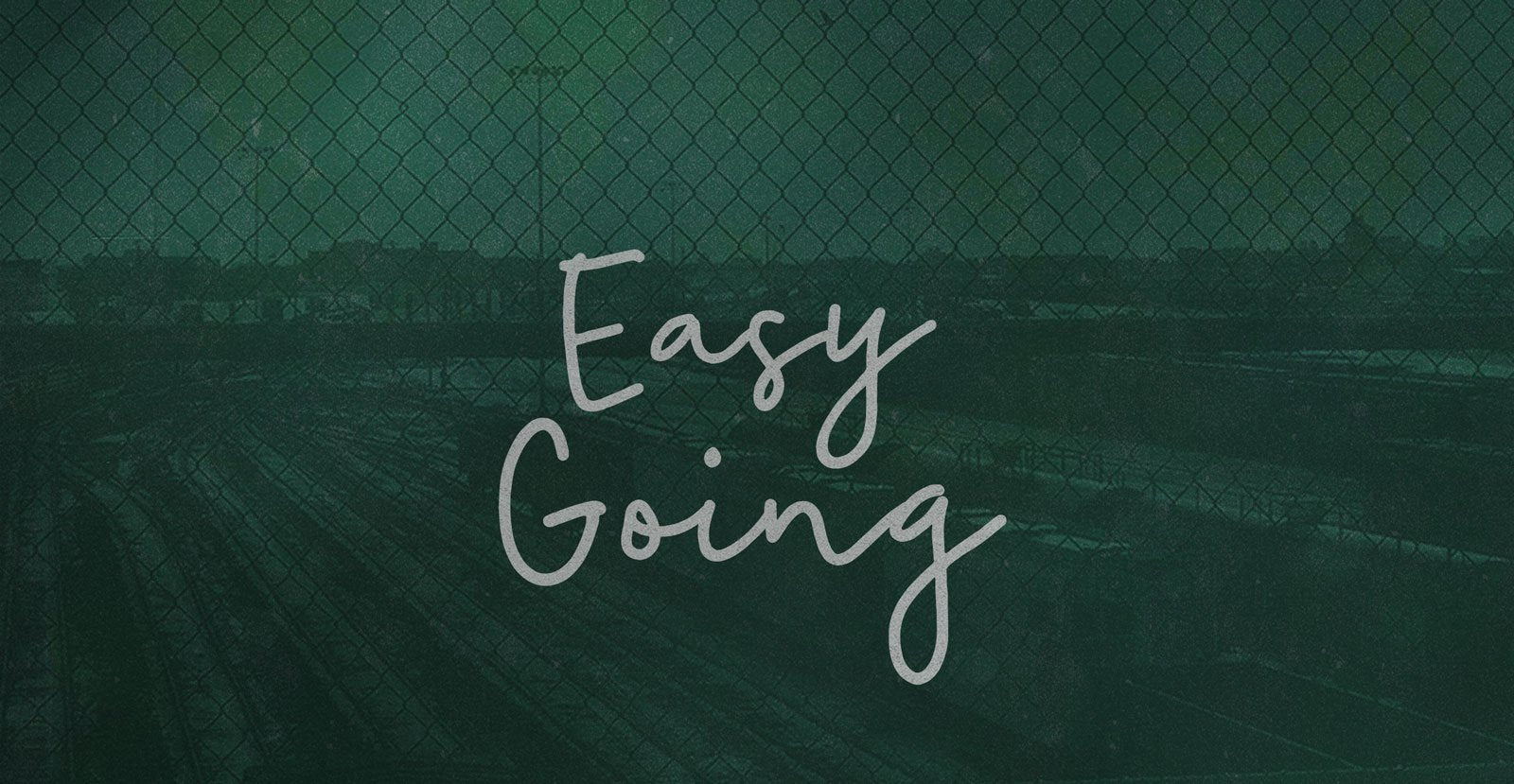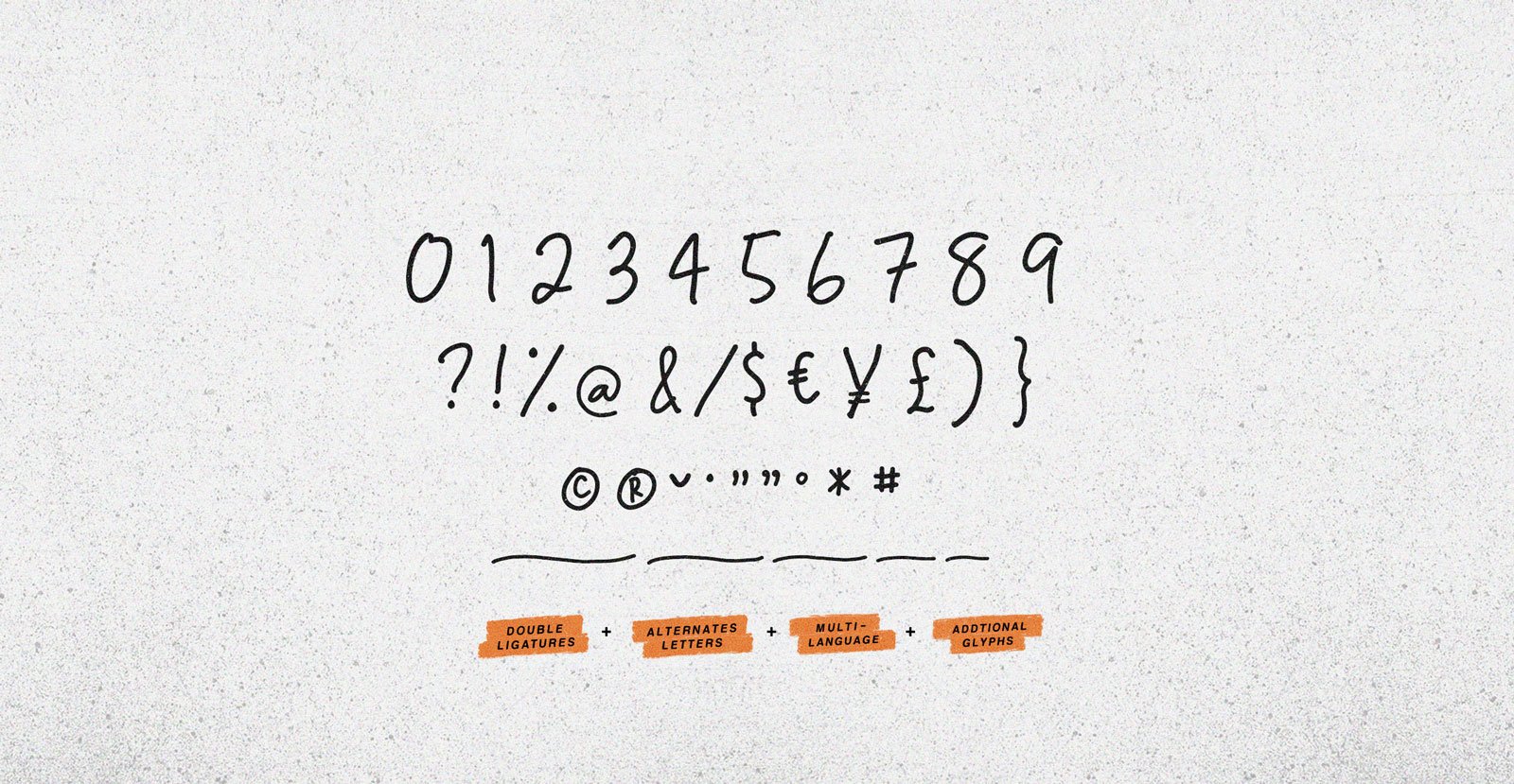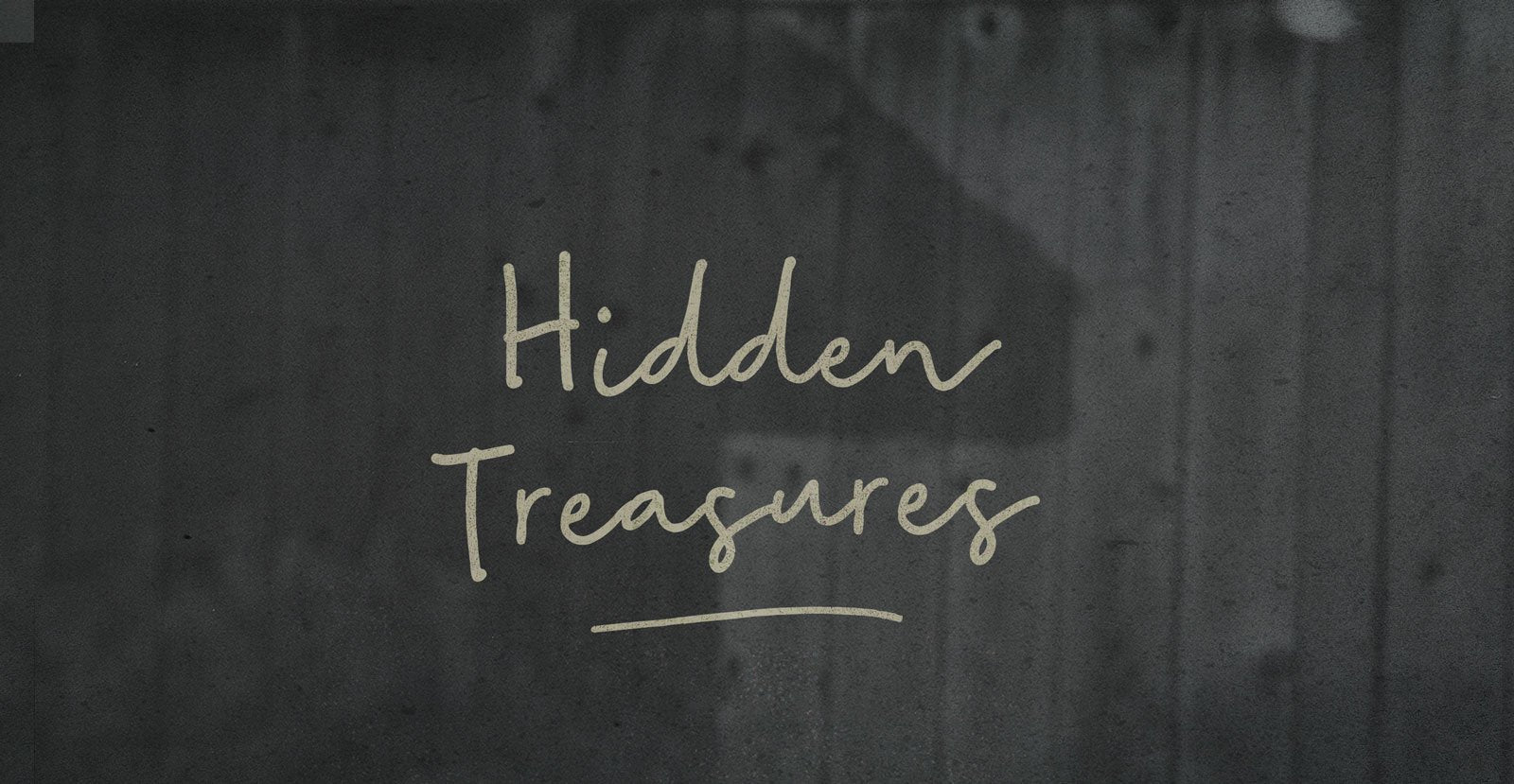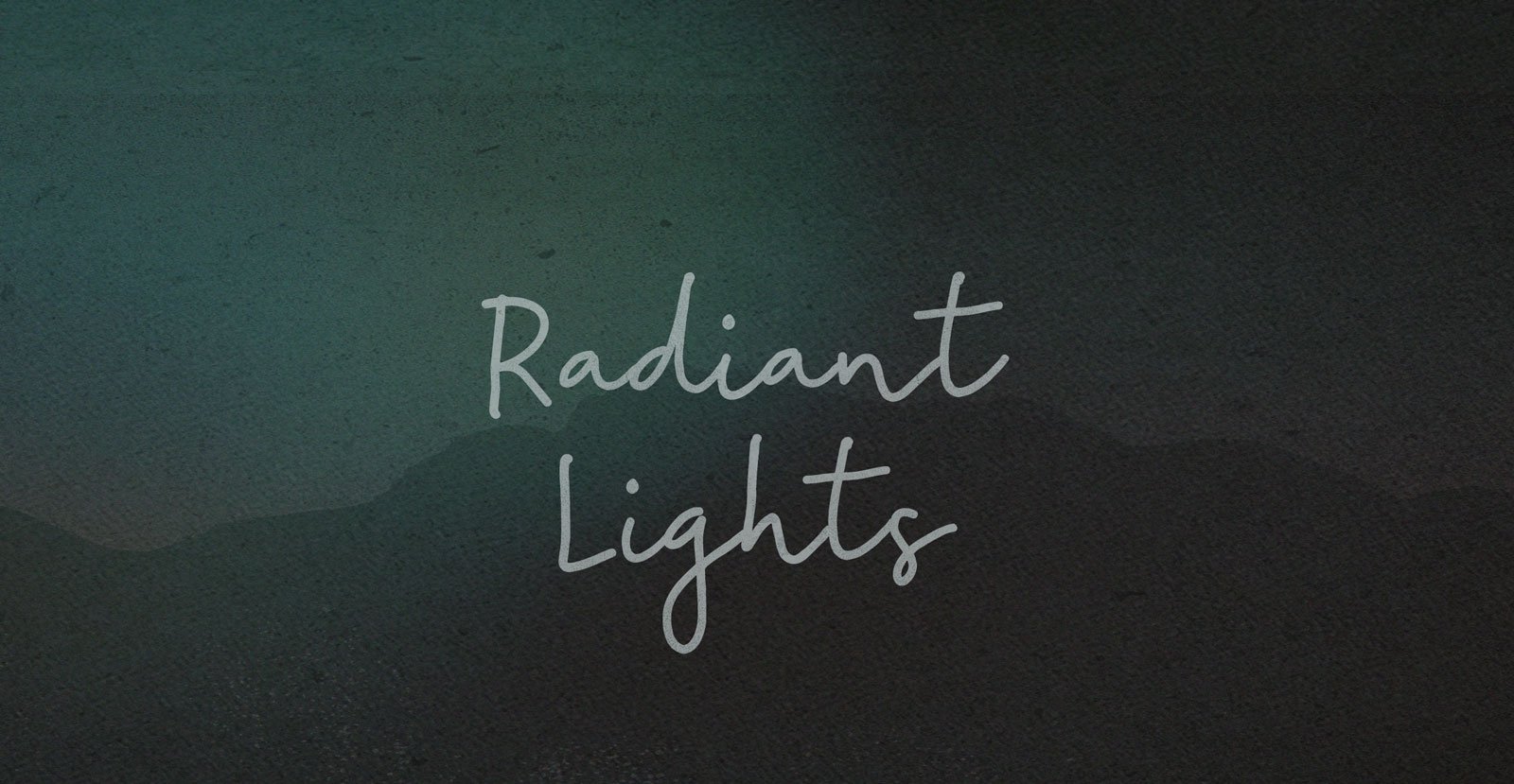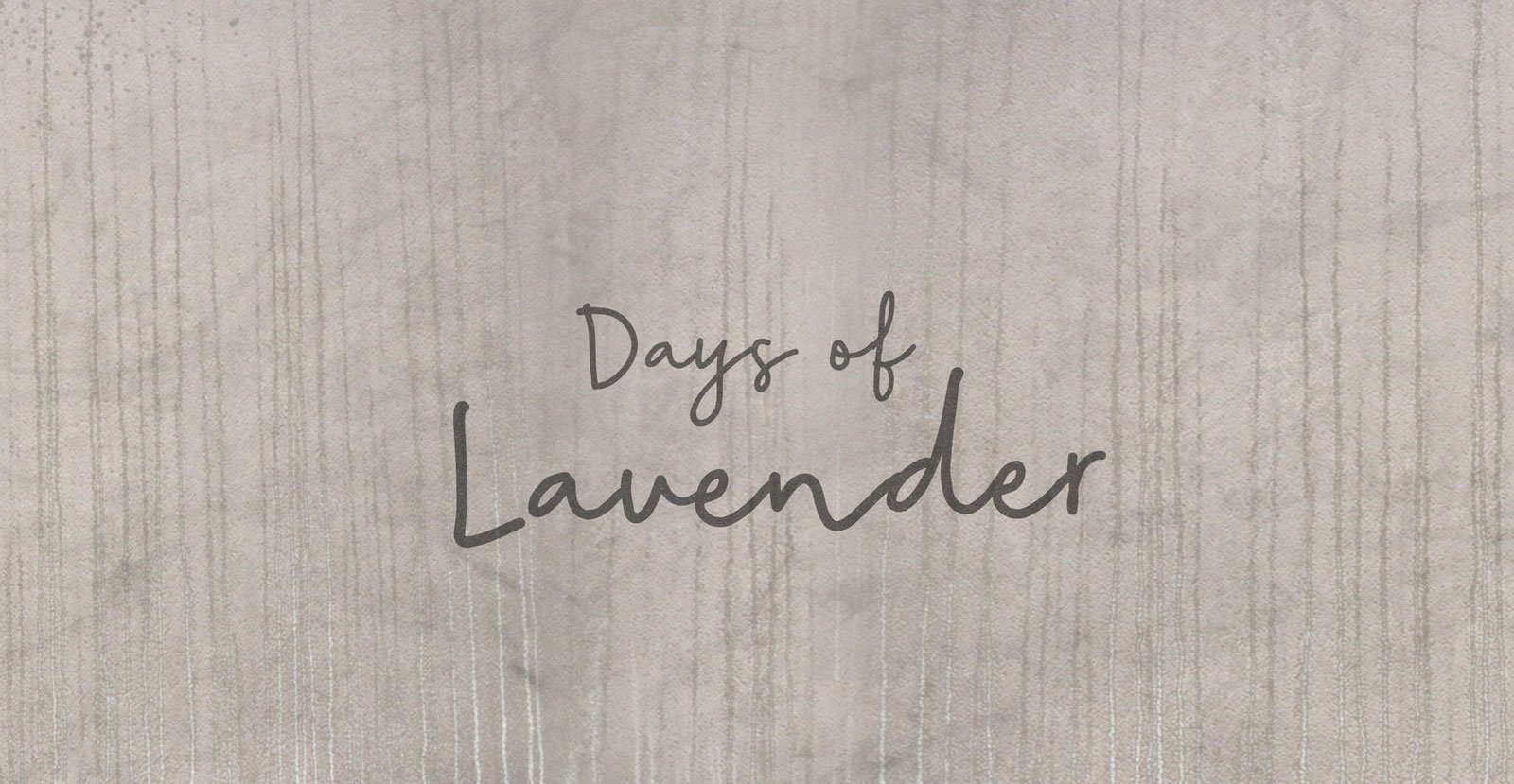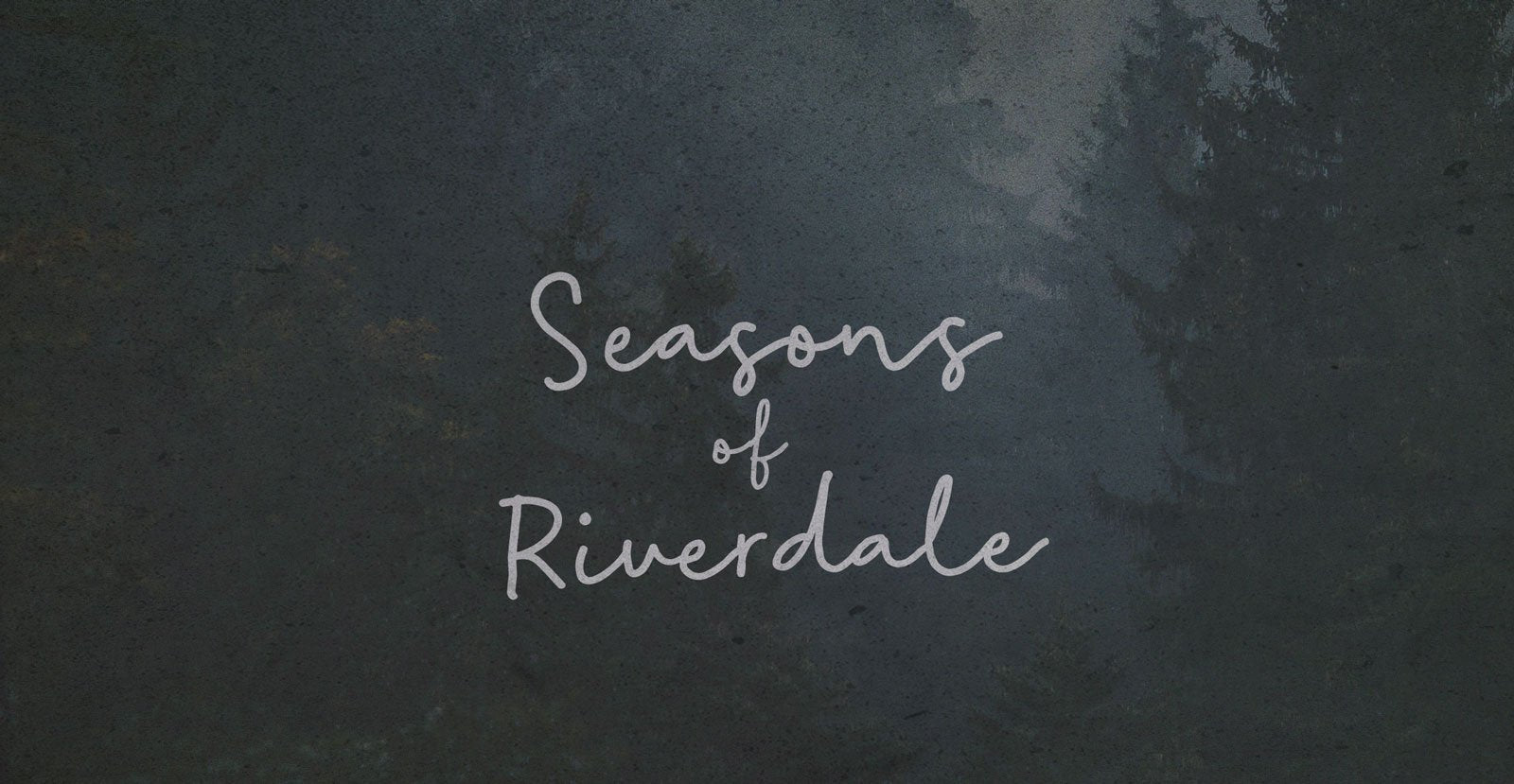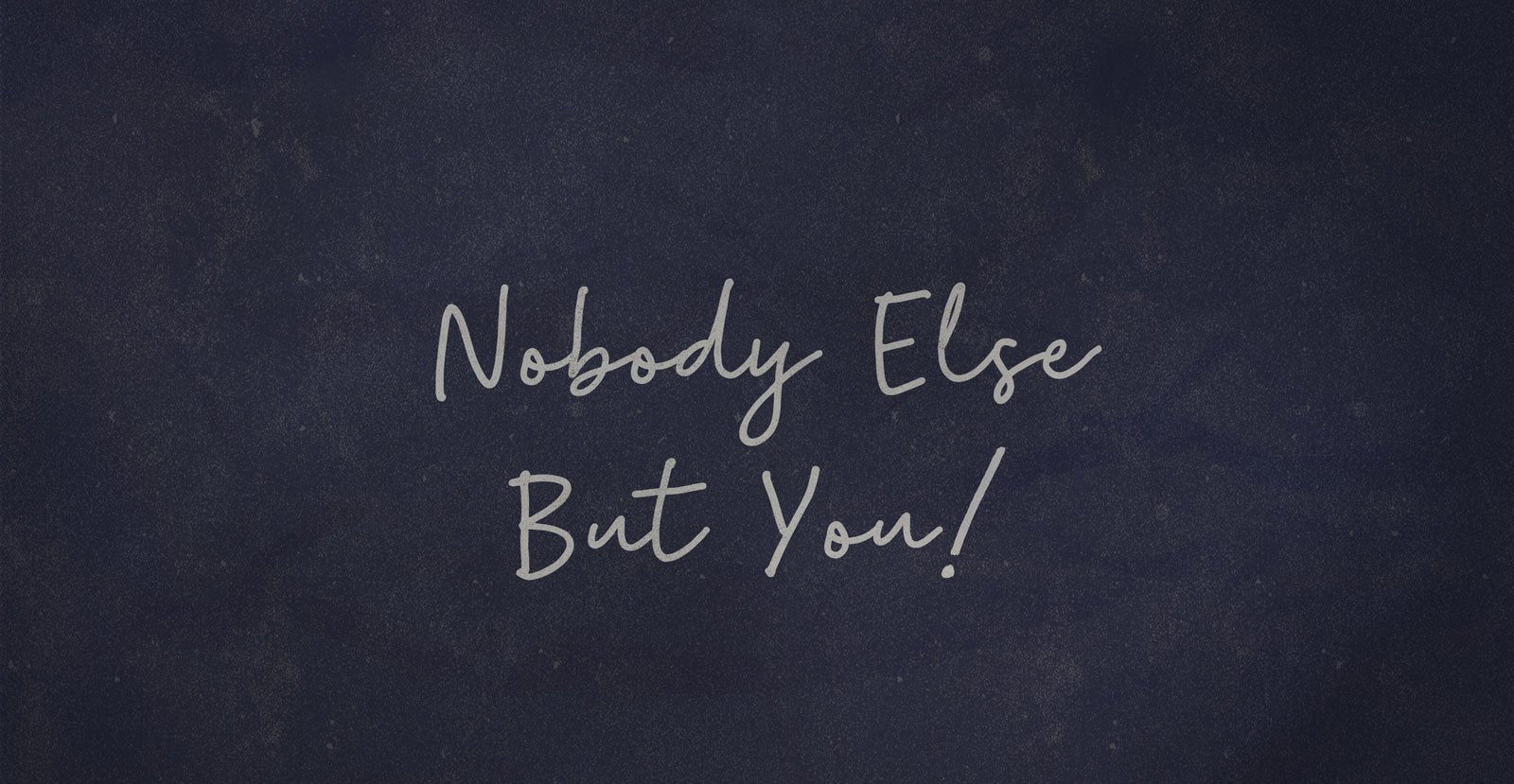
Easy Going
It's Easy Going. Staying is the hard part. Typically paired with power, the descriptor of a rare virtue, steady like stone silos, keeping things and holding us. Unlike the familiarity of change, our present eternity slipping away without a care, flying or falling, floating or flowing.